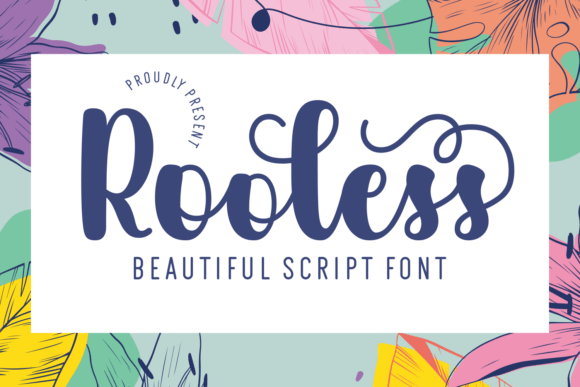
Introducing Rooless Font, an elegant cursive font that captures the essence of traditional calligraphy with its bold, sweeping strokes. Perfect for creating a timeless and authentic look, Rooless exudes charm and sophistication with every letter.
Dive into a world of creative possibilities with Rooless, the perfect choice for designers, crafters, and lettering enthusiasts. Whether you're designing wedding invitations, creating logos that exude sophistication, or adding a touch of vintage elegance to your projects, Rooless is your go-to font.
Unlock a treasure trove of creativity as you explore the diverse range of applications for Rooless. Let your imagination soar as you craft eye-catching watermarks, design unique greeting cards that leave a lasting impression, or create mesmerizing posters that captivate your audience. The possibilities are endless with Rooless.
Effortlessly add a touch of grace to your digital designs with Rooless. Its PUA encoding ensures seamless access to a world of glyphs and swashes, making it a breeze to incorporate intricate details and flourishes into your work. Unleash your creativity and watch as Rooless transforms your digital creations into works of art.
Transport yourself to a world of elegance and charm with Rooless, the font that embodies the essence of timeless beauty. With its carefully crafted curves and intricate details, Rooless adds a touch of sophistication to any project. Experience the joy of creating designs that evoke a sense of nostalgia and timeless charm.